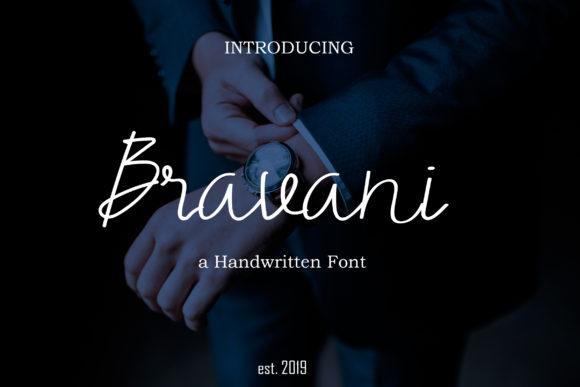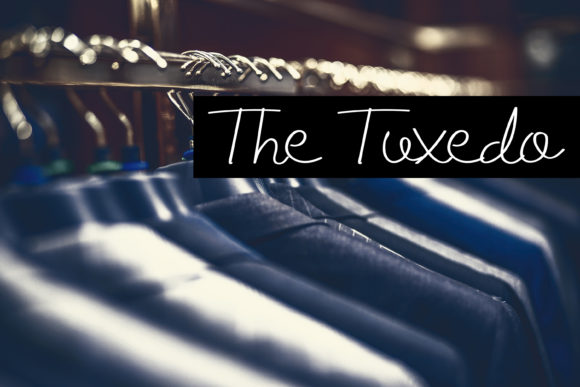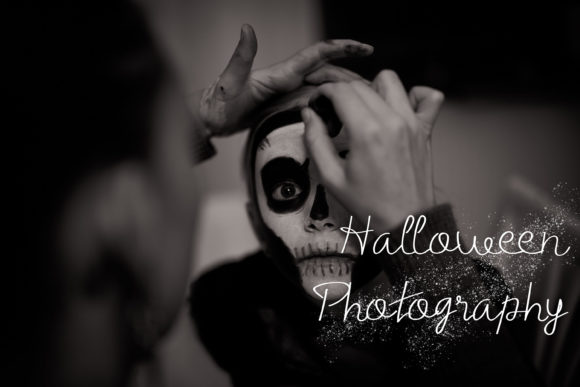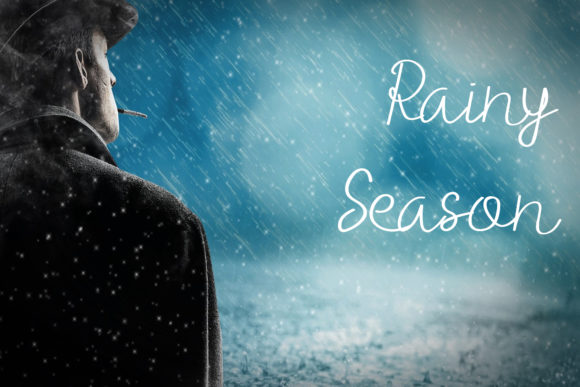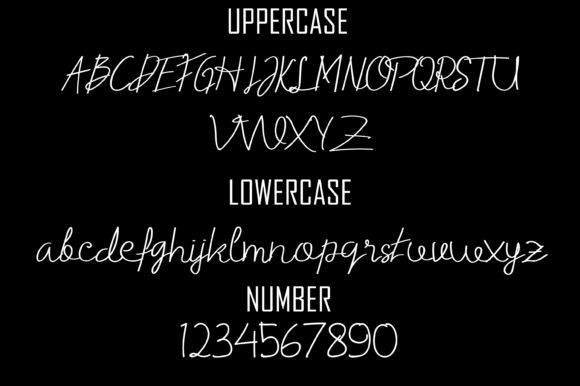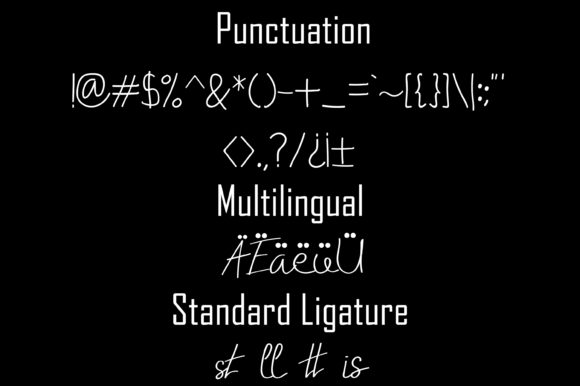
Bravani Font
About Bravani Font
The Bravani is a classy signature font that’s perfect for photography, signature, and branding. It has a simple, yet strong look which will make any design stand out.